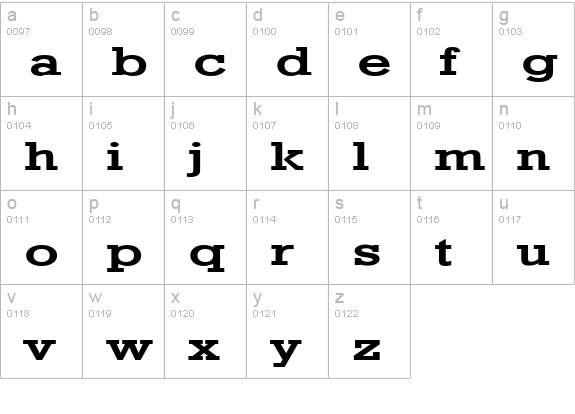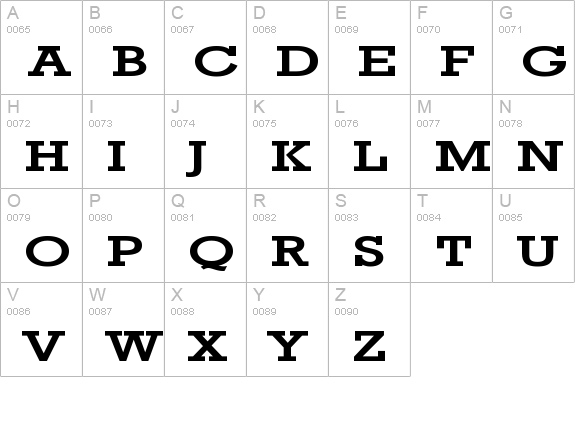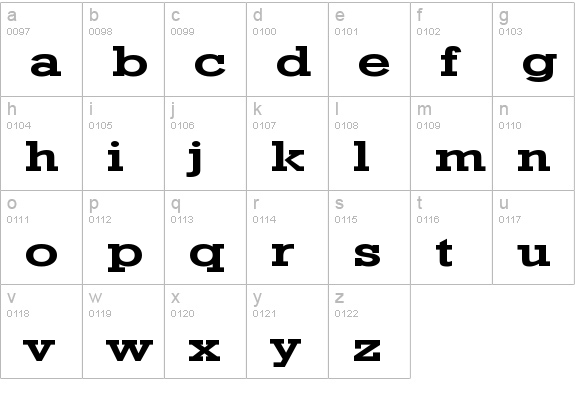
Geo 986 Extended Bold is a strong, high-contrast, extended-width variant in the Geo typeface family \xE2\x80\x94 well suited to headlines, attention-grabbing titles, and strong calls-to-action.
Geo 986 Extended Bold font is a modern and versatile typeface that exudes confidence and sophistication. With its bold and commanding presence, this font is perfect for making a bold statement in any design project. The extended character set allows for flexibility in design, making it suitable for a wide range of applications. This font is available for free download at FontsMarket.com, making it easily accessible for designers and creatives looking to add a touch of flair to their projects. Whether you're working on a poster, website, branding materials, or any other creative endeavor, Geo 986 Extended Bold font is sure to make a strong impression. Add this font to your collection today and elevate your designs to the next level.